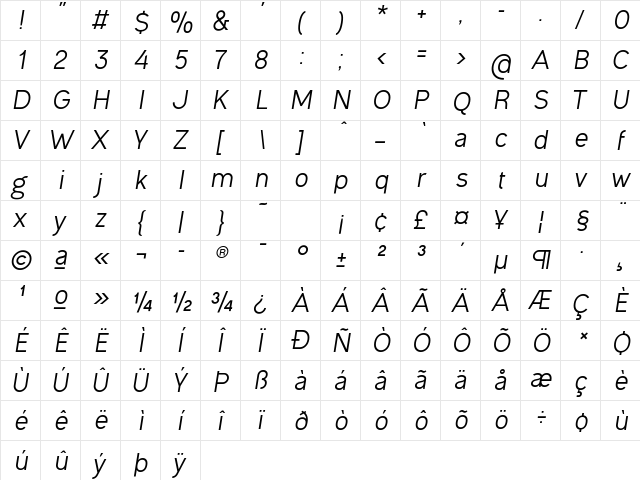
Ogonek Italic
Design Context for Ogonek Typeface
Ogonek is a composed and adaptable typeface that performs quietly and consistently across a wide range of design contexts. The slanted form adds forward momentum and visual energy.
Pro Tip: Use Ogonek for emphasis, pull quotes, and subheadings where its slanted energy can add rhythm to the layout.